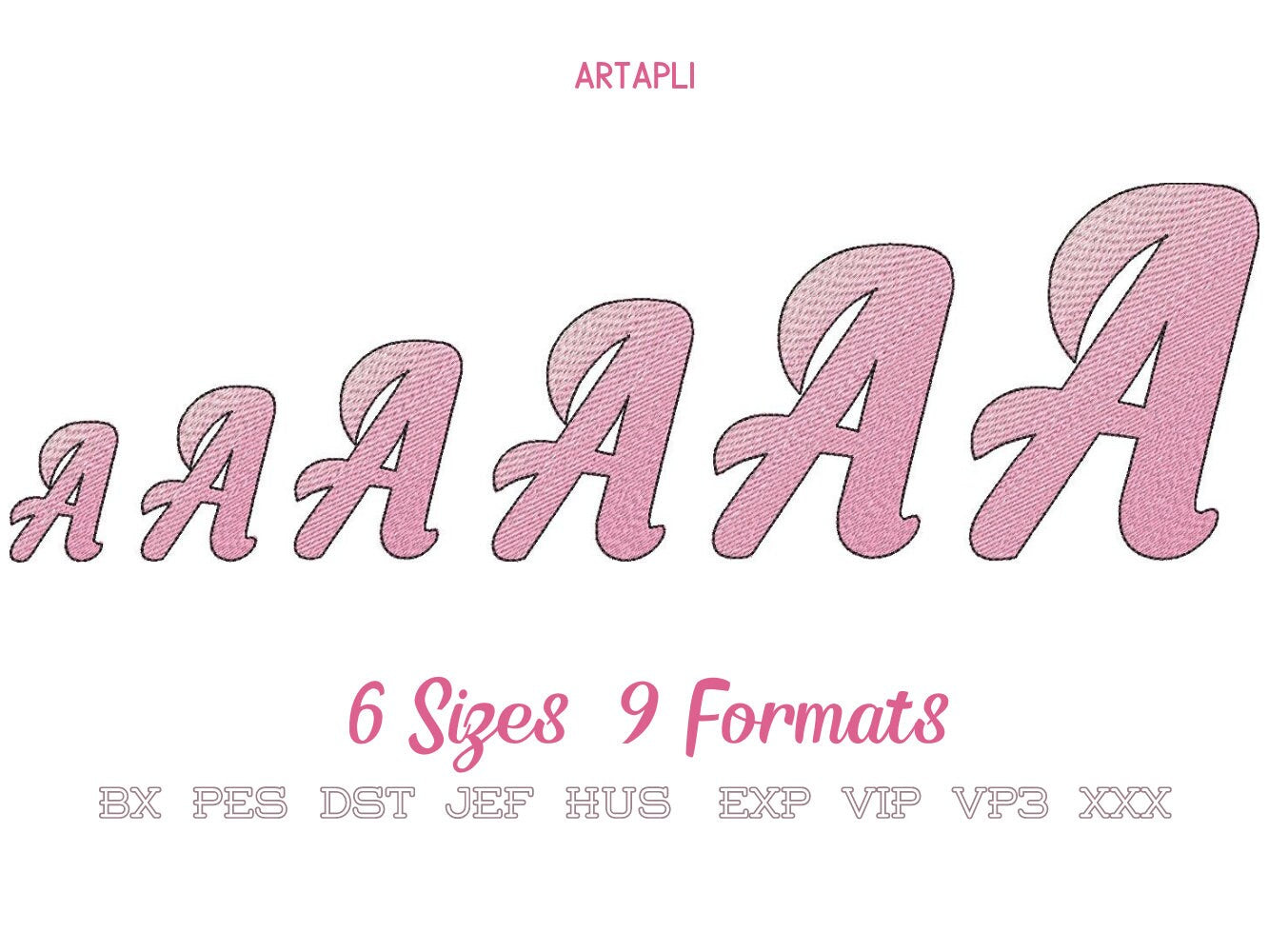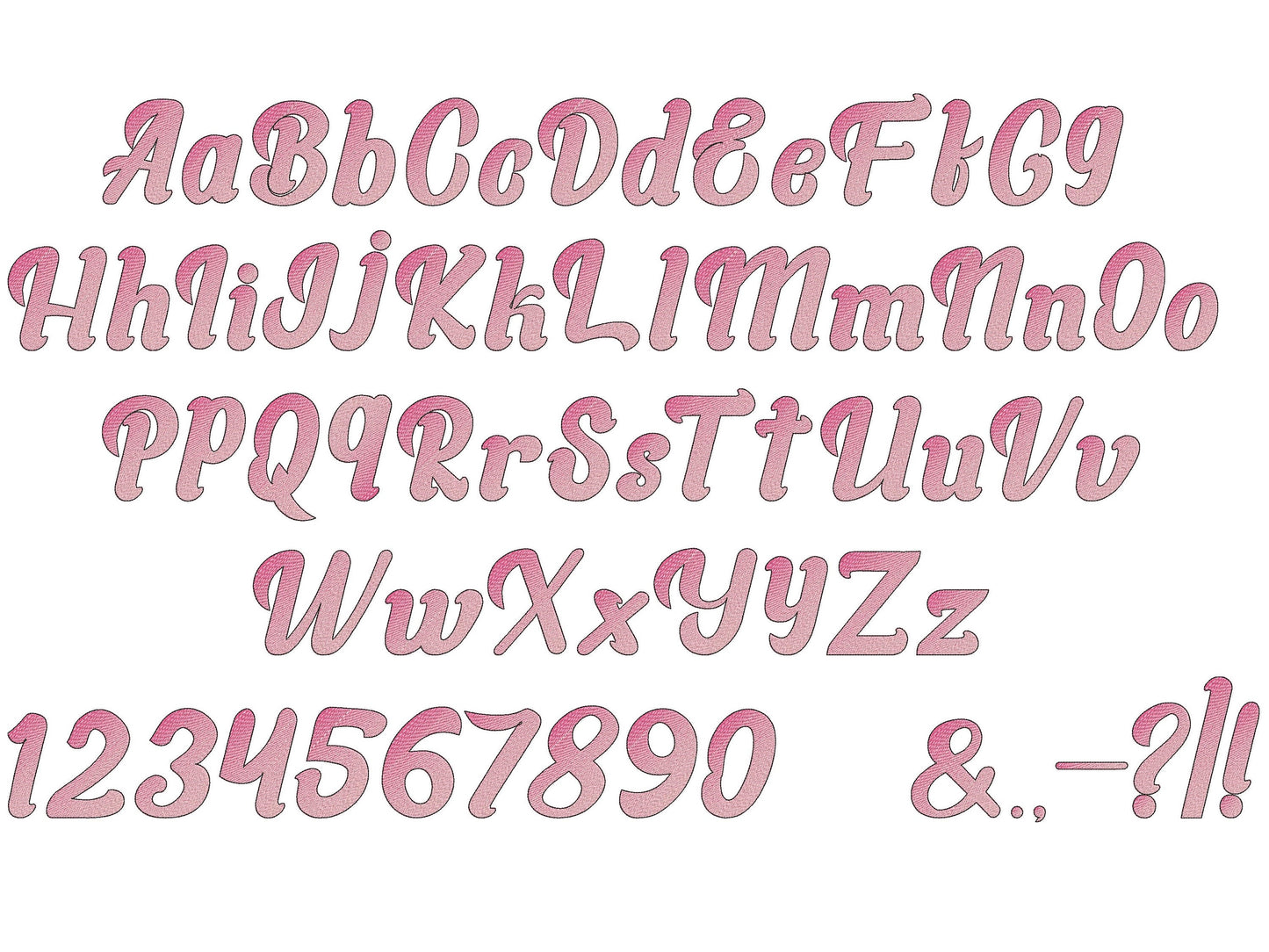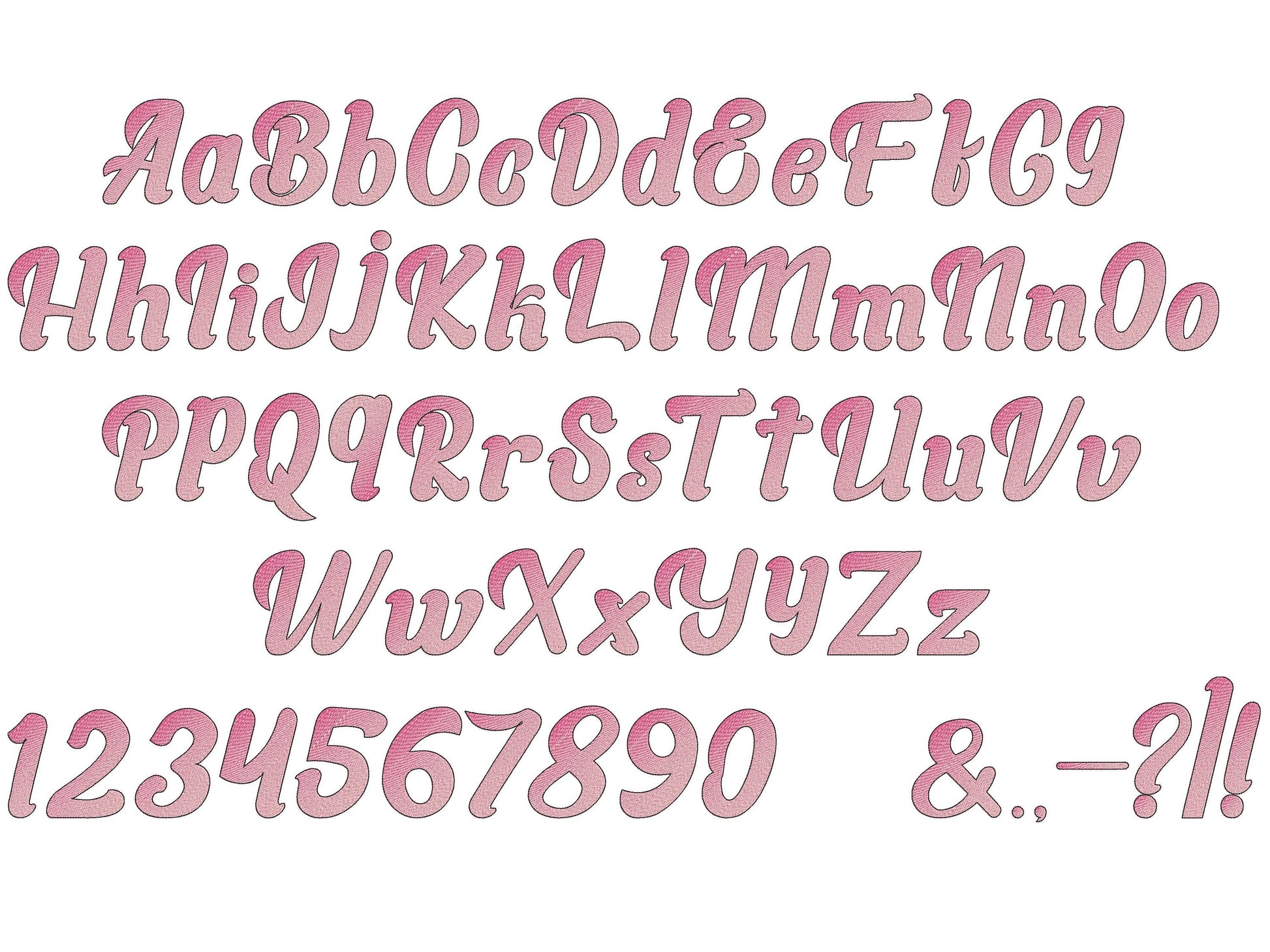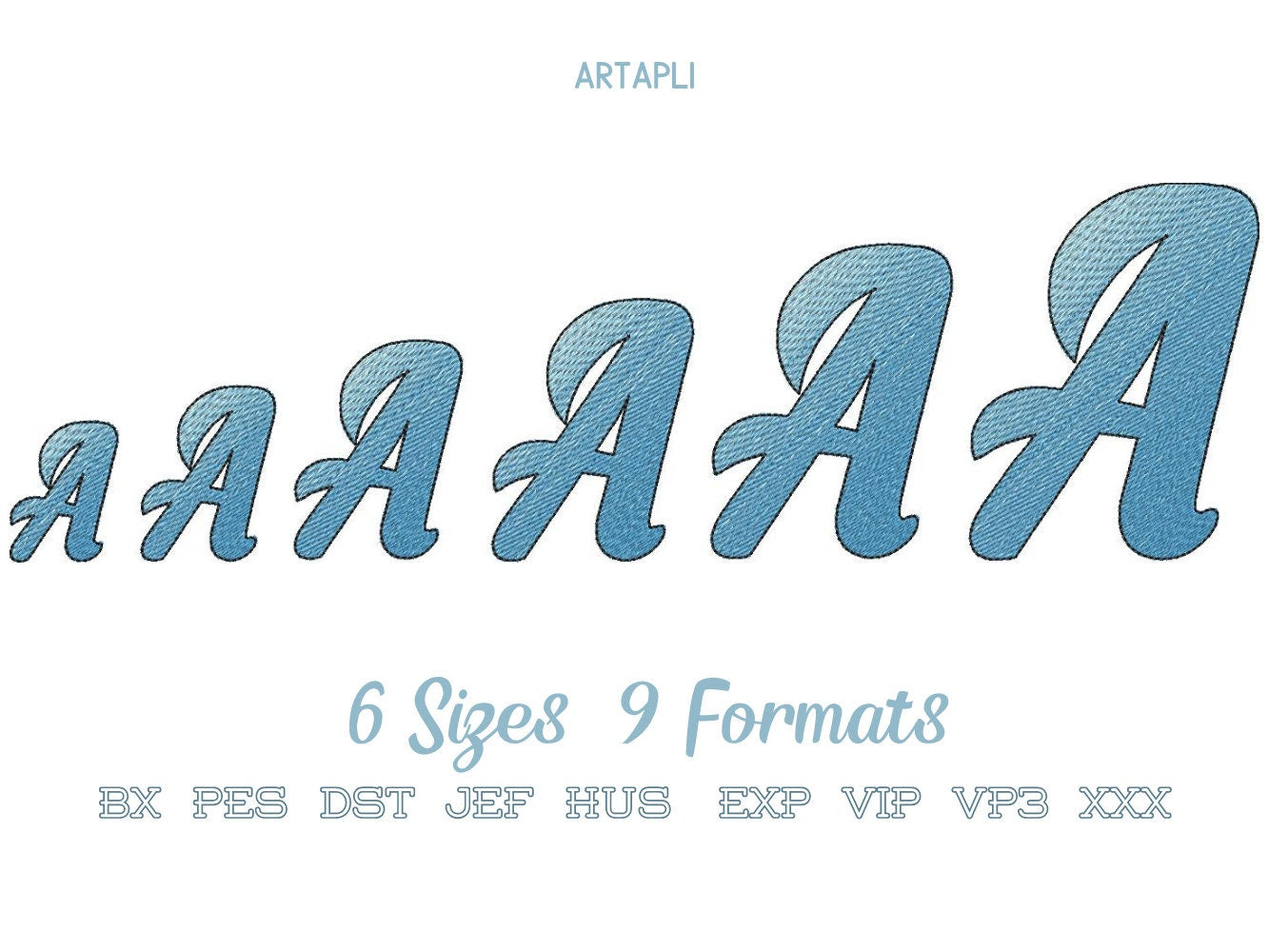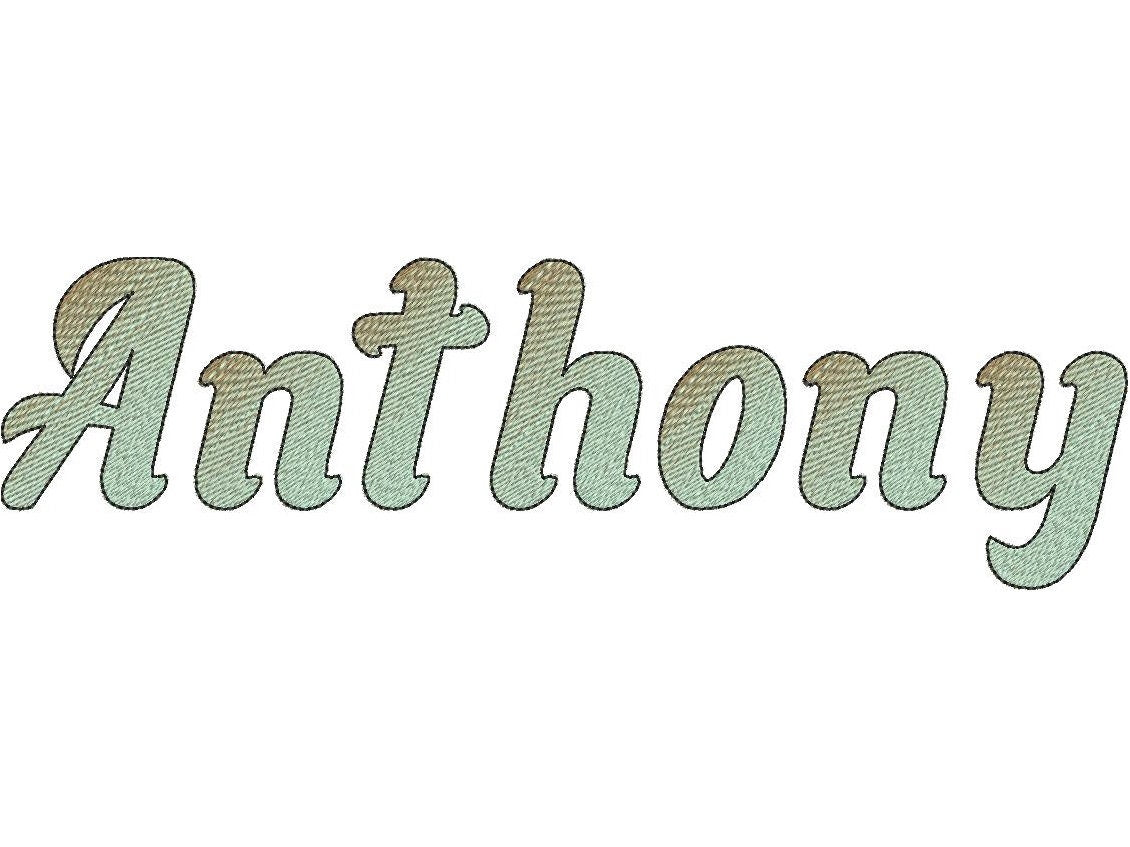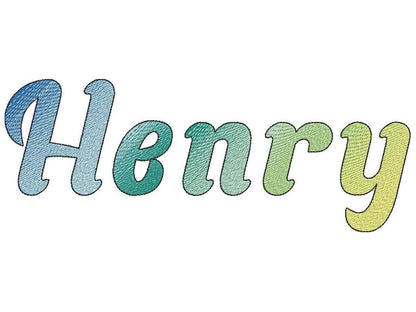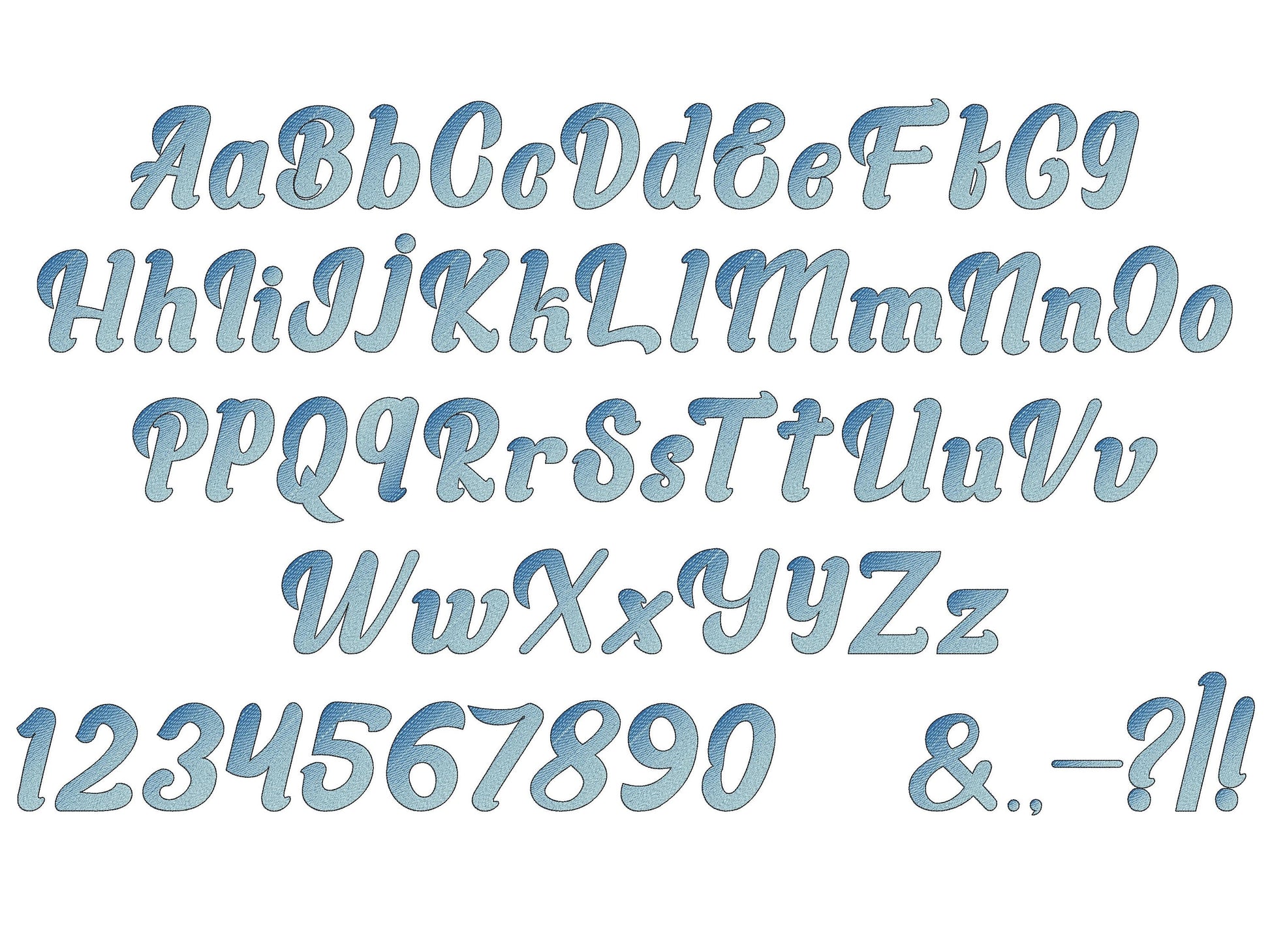
Iridescent 2-Color Gradient Ombre Font
Or click to open the linkAn iridescent script for kids stitched with two ordinary thread colors that blend into a rainbow gradient. No special thread needed.
Start on one side of the letter in one color, then change thread and finish the other side. Uppercase and lowercase letters, numbers 0 to 9 and punctuation in six sizes: 1.7, 2.1, 2.6, 3.1, 3.8 and 4.5 inches.
- Iridescent 2-color script font
- Uppercase, lowercase, numbers 0 to 9, punctuation
- 6 sizes, 1.7 to 4.5 in